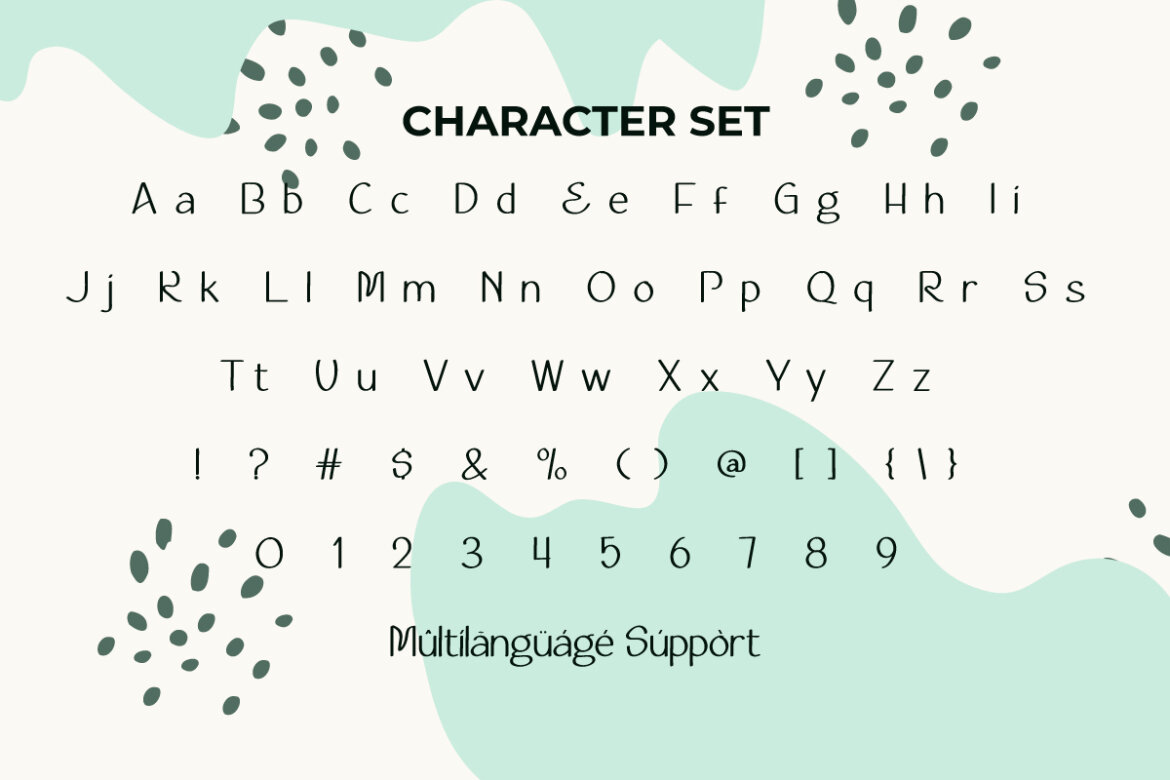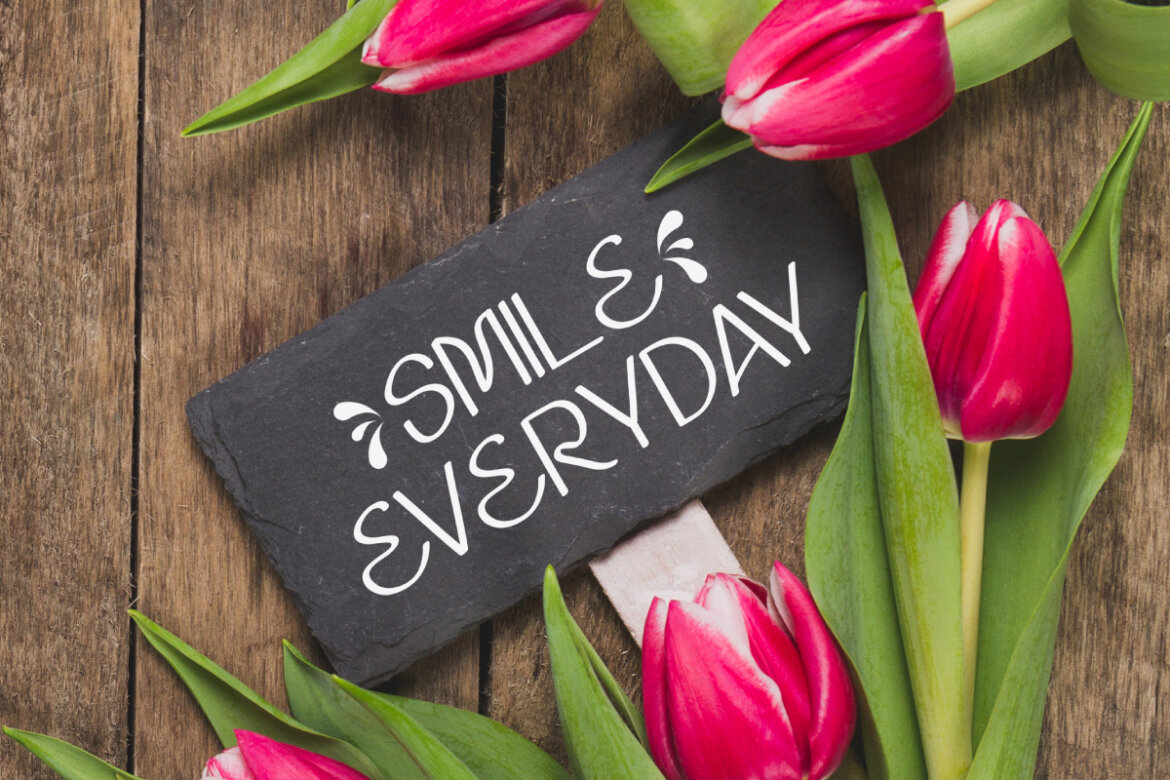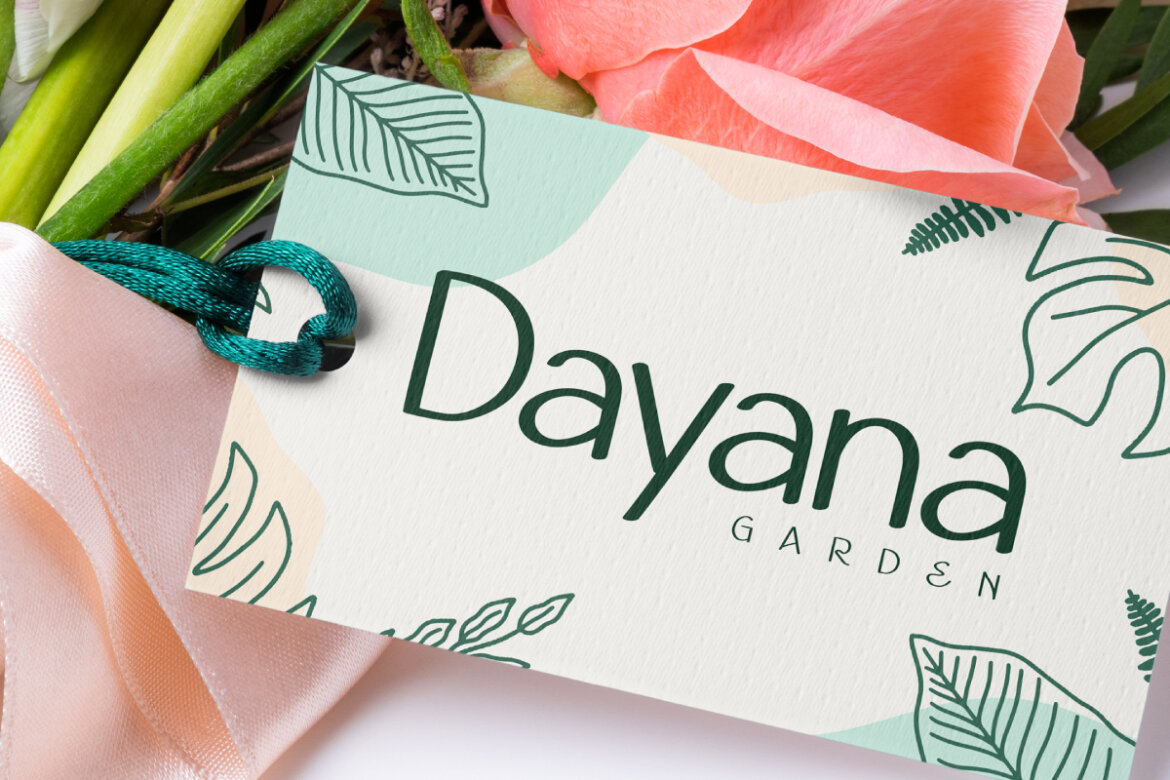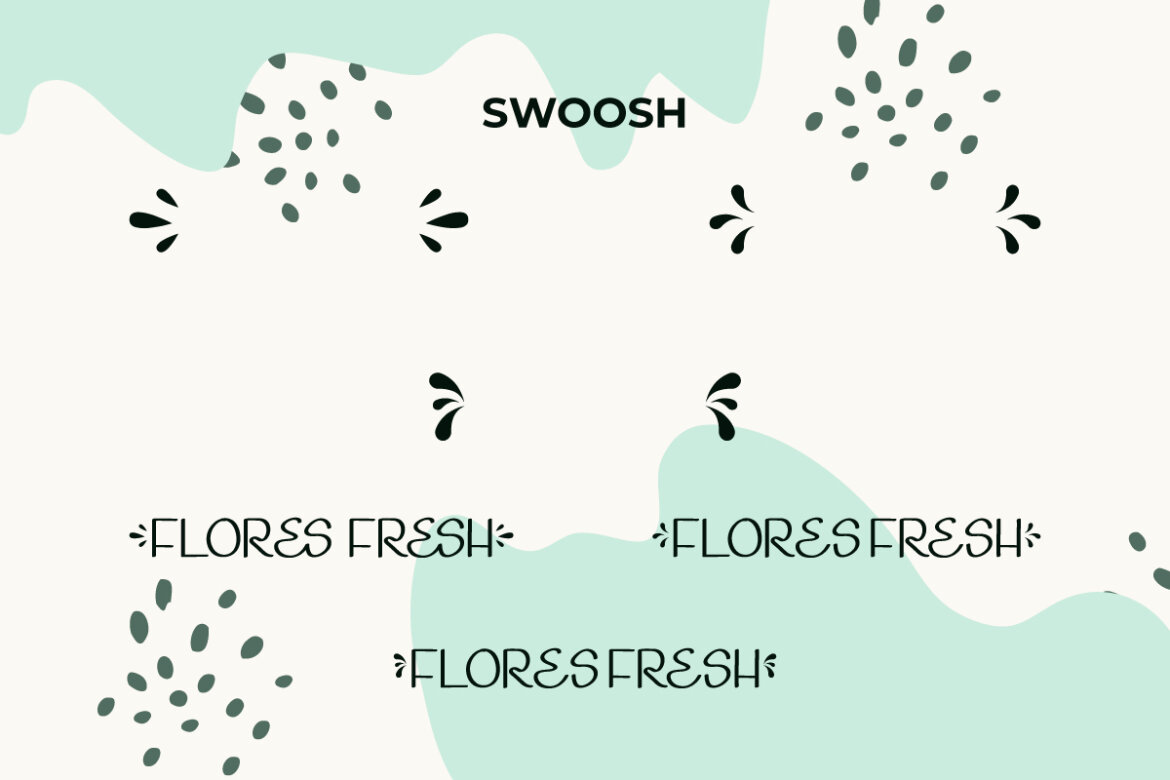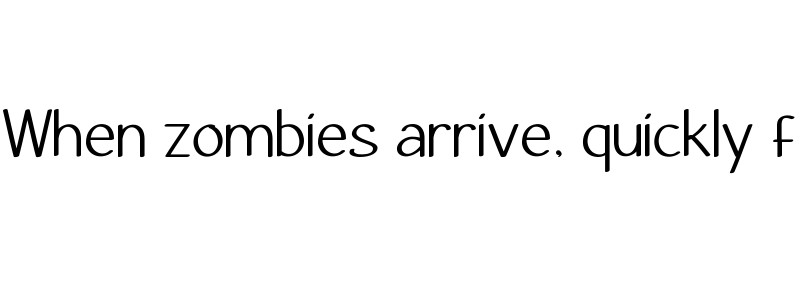
Flores Fresh
Flores Fresh Font is a fresh modern font with a pleasant natural and fresh touch. This balanced typography has been carefully designed to serve as both an uplifting and eye-catching font full of character. It’s ideal for brand logo, brochure, business card, cover, custom bag, greeting cards,  header, headline, label, mockup, packaging design, quotes, screen print, signage, template design, title, and more!
Flores Fresh Font has light letter shapes and some twisted. This keeps it simple but elegant and unique in one. Also, it still maintains high readability. You can play with these perfect combinations as well as have the flexibility to mix and match and create amazing combinations. It’s suitable for whatever your business, such as accessories or merchandise, botany, cafeteria, event organizer, fashion, florist, gardener, graphic design, handicraft, photography, etc.
Flores Fresh Font comes with a complete set of Uppercase and Lowercase Basic Characters, Number, a large range of Punctuation, and Symbol. It also features a cute Swoosh character to complement this font. It is supported with multilingual characters and ready to use both on Windows machine or Mac with simple installations. It’s tested to work well in the Adobe Apps (Illustrator, Adobe InDesign, Adobe Photoshop) CorelDraw, and others. PUA Encode Characters means you can access all the characters easily – Fully accessible without additional design software.